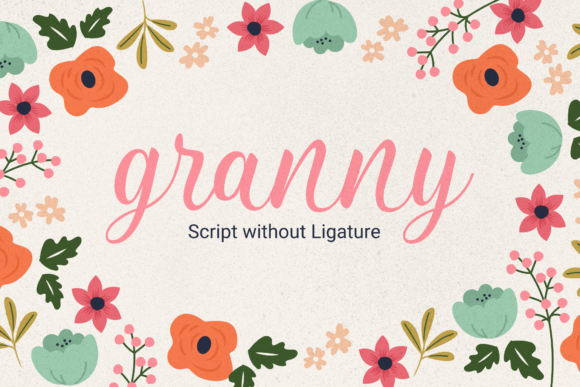
Meet Granny Font: The Sweetest Addition to Your Design Toolbox
Have you ever been stuck on a design project, searching for that perfect font to bring your vision to life? I know I have! It’s like trying to find the perfect recipe for a homemade dessert – you need just the right combination of ingredients to make it truly special. And that’s exactly what I found when I discovered the Granny Font.
This charming, cursive handwritten font is a designer’s dream come true. With its gentle curves and playful feel, the Granny Font adds a joyful and romantic touch to any project. Whether you’re creating a wedding invitation, a birthday card, or a logo for a small business, this font is sure to make it extra special. The Granny Font is a valuable addition to any designer’s toolbox, offering a unique and versatile way to express your creativity.
Granny Font Key Features
- Unique Characteristics: Granny Font features a unique, whimsical design with a mix of traditional and modern elements, making it perfect for creating eye-catching and memorable designs.
- Font Styles: Granny Font includes multiple font styles, including regular, bold, italic, and bold-italic, providing designers with a range of options to choose from.
Granny Font Review
I recently had the chance to work with Granny Font, and I must say it’s a unique and quirky choice for a design project. Here are my thoughts:
- Granny Font has a distinctive personality that’s perfect for projects that need a touch of whimsy or nostalgia.
- The font’s irregularities and imperfections can add a charming, handmade feel to your design.
- Granny Font comes in a range of weights and styles, making it versatile for use in various design contexts.
- Granny Font may not be the best choice for projects that require a clean, modern, or professional look.
- The font’s irregularities can also make it challenging to read, especially at smaller font sizes.
- Some users may find the font’s unique character to be distracting or annoying.
Overall, I think Granny Font is a great choice for designers who want to add a touch of personality to their projects. However, it may not be the best fit for every design context. With careful use and consideration, Granny Font can add a unique and charming element to your designs.
Tips for Getting the Most Out of Granny Font
To get the most out of Granny Font, try combining it with other vintage elements, such as distressed textures and classic graphics.
Alternatives to Granny Font
Playfair Display is a high-end serif font that resembles a classic, elegant script. It’s ideal for use in luxury brands, high-end fashion, or any project that requires a touch of sophistication. When to use: Luxury brands, high-end fashion, weddings, and special occasions.
Playfair Display is more refined and elegant compared to Granny Font, which has a more playful and vintage feel.
Lobster is a fun, cursive script font that’s perfect for creating a playful and youthful vibe. It’s ideal for use in entertainment, food, and lifestyle brands. When to use: Food, entertainment, lifestyle, and youth-focused brands.